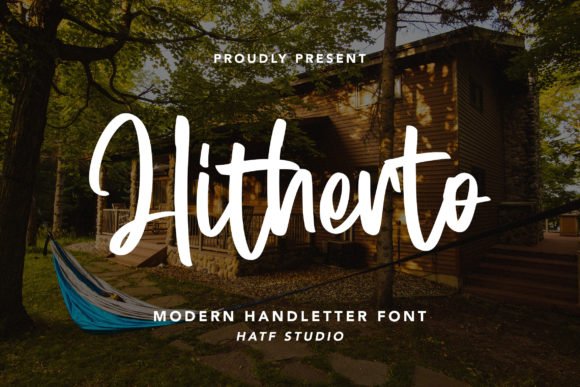
Get Ready to Unleash Your Creativity with the Hitherto Font
There’s something magical about sitting at your desk, staring at a blank canvas, and waiting for inspiration to strike. The cursor blinks, and you’re left wondering what to create next. But then, it happens – a spark of creativity ignites, and you know exactly what you want to bring to life. For designers, this moment is a beautiful thing, and the right tools can make all the difference.
Enter the Hitherto Font, a casual and approachable handwritten font designed to elevate your posters, flyers, and prints. With its relaxed and effortless vibe, this font is the perfect companion for your creative endeavors. Whether you’re a seasoned pro or just starting out, the Hitherto Font is a valuable addition to your design arsenal, offering endless possibilities to explore and express your unique style.
Hitherto Font Key Features
- Unique Character Set: Hitherto Font features a unique character set that includes a wide range of symbols, icons, and glyphs, making it an ideal choice for designers and typographers who require a high level of customization.
- Multi-Lingual Support: The font is designed to support multiple languages, including Latin, Cyrillic, and Greek scripts, making it a versatile choice for global branding and design projects.
- High-Quality Typography: Hitherto Font is designed with high-quality typography in mind, featuring precise letterforms, even spacing, and a clean, modern aesthetic.
- Customization Options: The font includes a range of customization options, including ligatures, swashes, and contextual alternates, allowing designers to add a personal touch to their designs.
Hitherto Font Review
Overall, I have mixed feelings about the “Hitherto Font”. There are some things that I genuinely like about it, but there are also some limitations that hold it back from being a top-notch font.
- Unique aesthetic: Hitherto Font has a distinct, vintage-inspired look that can add a touch of elegance to any design.
- High-resolution glyphs: The font is available in high-resolution formats, making it perfect for printing and digital use.
- Customizable: Hitherto Font offers a range of customization options, allowing designers to tailor the font to their specific needs.
- Limited language support: Unfortunately, Hitherto Font does not support as many languages as I would like, which can be a major drawback for designers who need to create multilingual content.
- Not suitable for small text: The font’s large x-height and irregular letterforms make it difficult to read in small sizes, which can be a problem for designers who need to use it in body text.
Overall, I would say that Hitherto Font is a solid choice for designers who are looking for a unique, elegant font for their next project. However, it may not be the best fit for everyone, especially those who need to create content in multiple languages or require a font that can be easily read in small sizes.
Getting the Most Out of Hitherto Font
For the best results, use Hitherto Font in combination with other elegant fonts and a clean design aesthetic.
Experiment with different font sizes, colors, and styles to create a unique and eye-catching look.
Hitherto Font is ideal for:
Business cards and marketing materials
Editorial and publishing designs